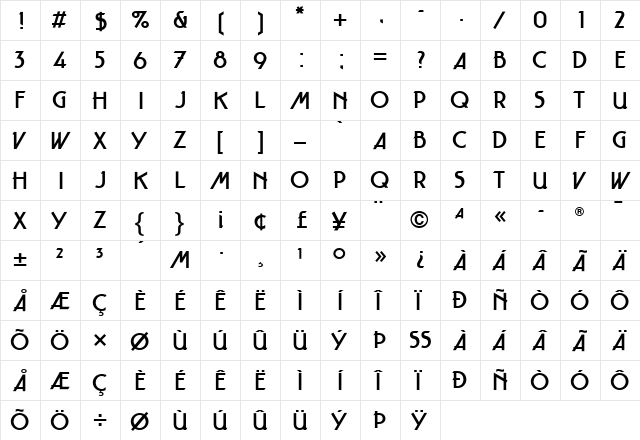
Taut LT Regular Regular
Design Context for Taut LT Regular Typeface
Taut LT Regular takes a measured approach to typography — its balanced proportions and neutral character make it a reliable workhorse for both digital and print work. Its slender proportions lend an understated elegance to any composition.